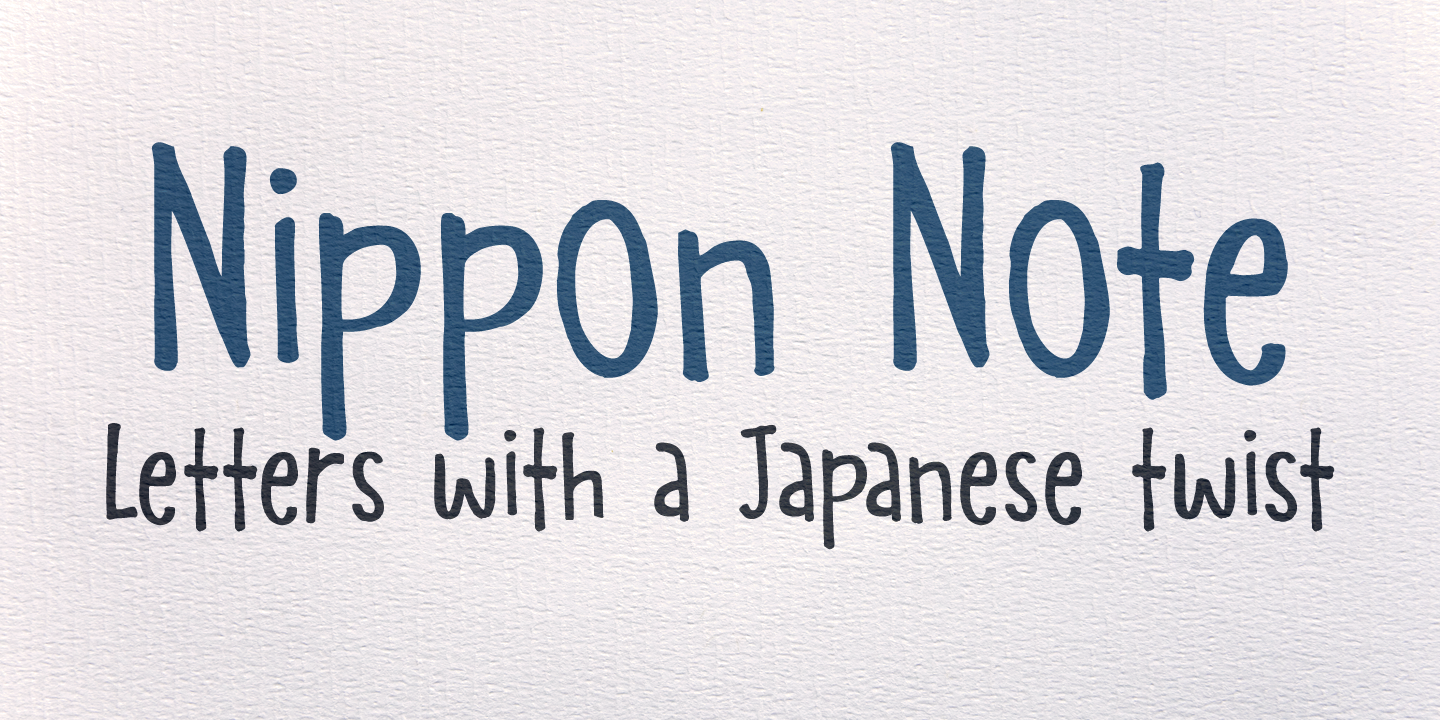
Nippon Note Font is perfect for Japanese calligraphy studios, traditional sushi restaurant menus, cultural heritage publications, zen meditation centers, authentic tea ceremony invitations, Japanese language learning materials, cultural exchange programs, and artistic haiku collections. This elegant typeface excels in Japanese cultural applications, traditional design projects, and any creative work requiring authentic Japanese character that captures the essence of traditional Japanese writing and cultural sophistication through handwritten elegance.
What makes Nippon Note Font exciting is its exceptional ability to embody the graceful art of Japanese calligraphy and traditional handwriting through authentically crafted letterforms that carry the spirit of brush strokes and cultural heritage. The font features artistically designed characters with calligraphic flows and traditional proportions that evoke feelings of cultural depth and artistic authenticity, making it ideal for brands seeking to establish connections with Japanese culture enthusiasts and communicate through traditional visual language. Its calligraphic presence ensures immediate recognition of Japanese authenticity and cultural sophistication.
Nippon Note Font family includes multiple weights and styles: Regular, Bold, Light, Medium, Italic variations, and brush alternates with calligraphic embellishments and traditional decorative elements. Each family member maintains the distinctive Japanese character while offering comprehensive design options for cultural campaigns, from delicate handwritten text to commanding calligraphic headlines that establish cultural authority and Japanese credibility through authentically traditional typography.
Whether you're designing Japanese cultural brands or creating traditional heritage campaigns, Nippon Note Font Free Download provides the perfect typography solution for authentic Japanese branding needs. This font transforms ordinary text into beautiful cultural expressions that communicate Japanese tradition and calligraphic elegance. Japanese restaurants and cultural institutions choose this typeface for its ability to convey traditional authenticity through artistically crafted letterforms that flow through designs with calligraphic grace and celebrate the timeless beauty of Japanese writing traditions.